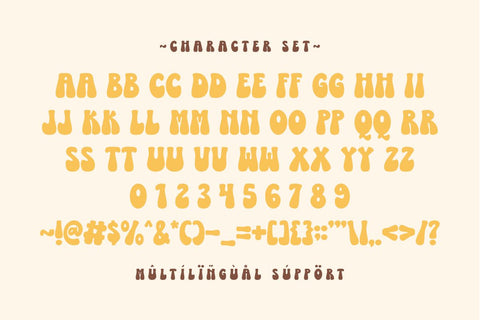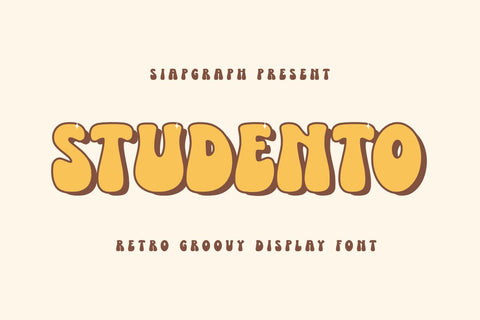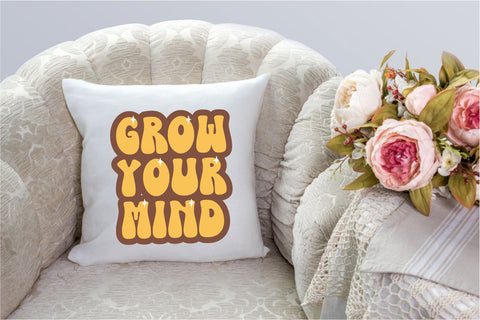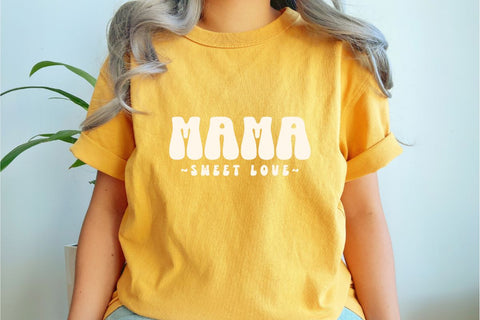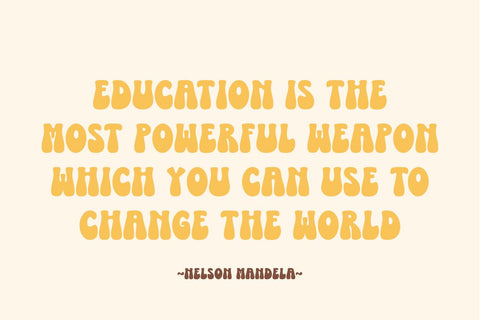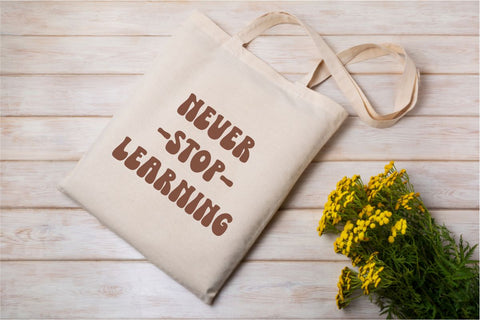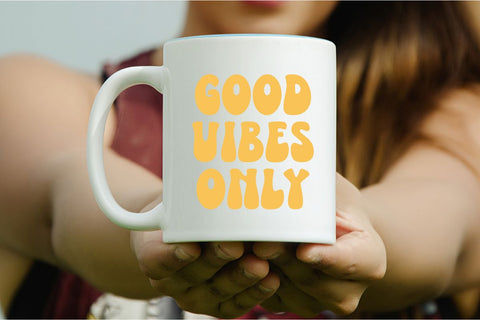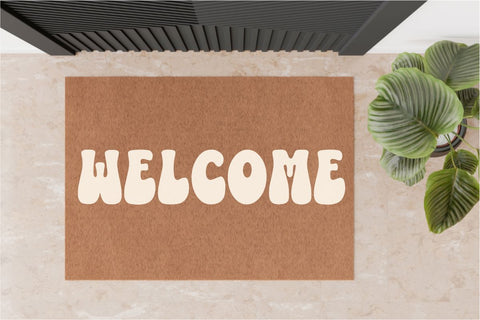
Studento - Retro Groovy Font
Studento is a groovy retro display font that transports your designs back to the vibrant and energetic era of the 70s. Its thick, rounded, and slightly wavy letterforms exude a playful nostalgia and a distinctly fun personality. The bold presence and unique retro curves make it an eye-catching choice for any project seeking a vintage yet lively vibe. This font is perfect for adding a touch of groovy coolness and cheerful energy to a wide array of creative endeavors. Imagine Studento bringing a vibrant retro flair to stickers, cool planner designs, bold t-shirt graphics, eye-catching labels, unique invitations, personalized tumblers, and countless other engaging crafts. Its distinctively retro and playful style makes it exceptionally well-suited for products targeting end-users who enjoy crafting with Cricut, sublimation, and other DIY methods, adding an authentic vintage charm and a fun pop to their creations. Studento's undeniable character will ensure your designs stand out with its nostalgic yet fresh and appealing aesthetic, making every project feel effortlessly cool and full of good vibes.